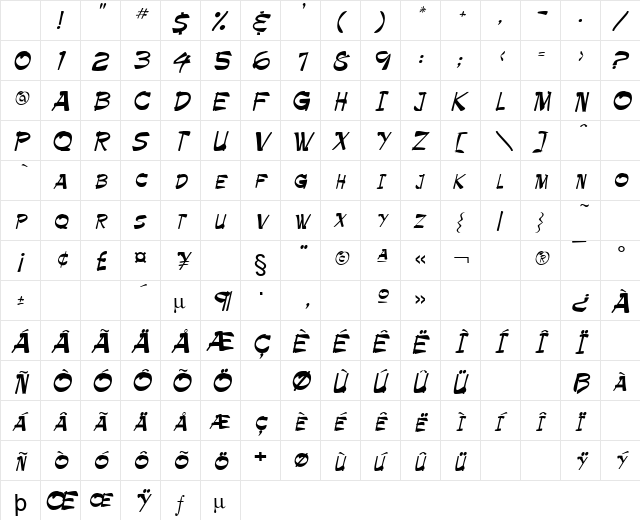
Complete Palamino Normal glyph index. Displaying only characters natively supported by Palamino Normal font.
Palamino is a composed and adaptable typeface that performs quietly and consistently across a wide range of design contexts.